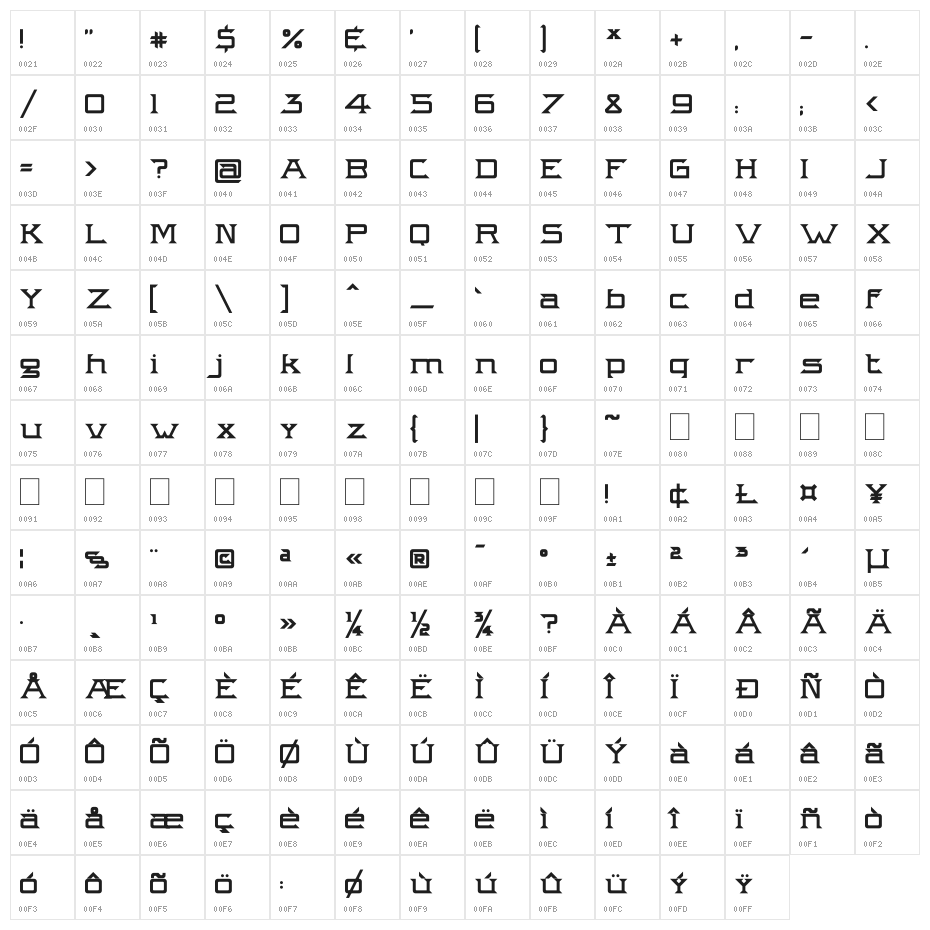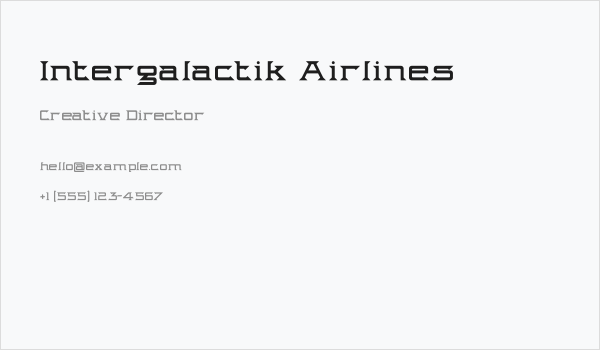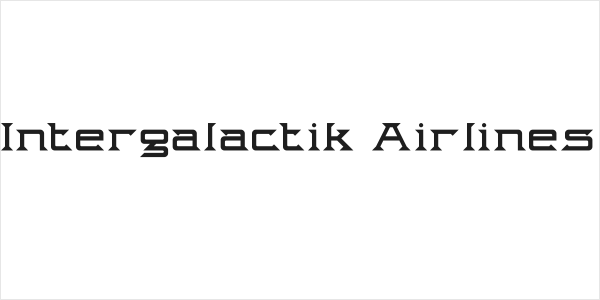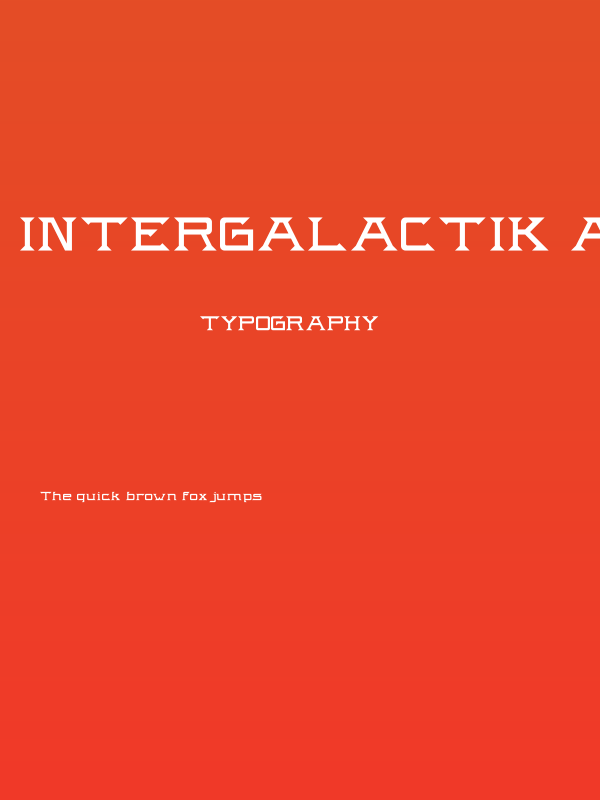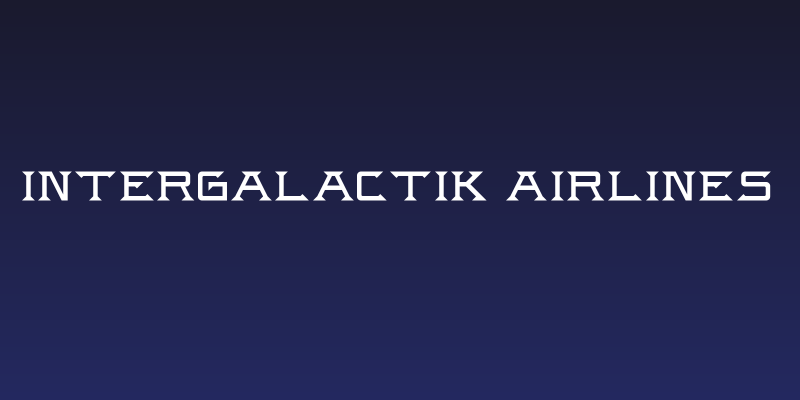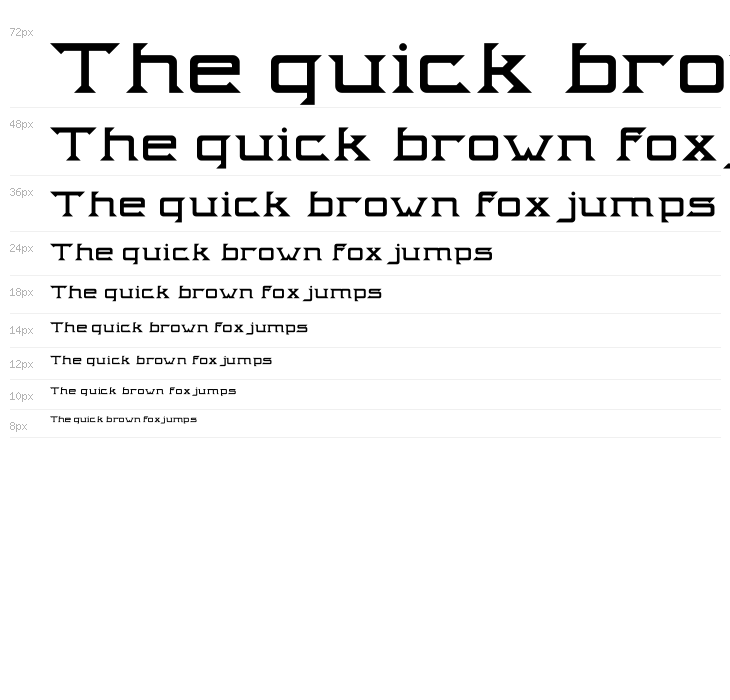
Intergalactik Airlines Font
Intergalactik Airlines Description
This font features a futuristic and angular design, characterized by sharp edges and geometric shapes. The uppercase letters are bold and striking, with a consistent height and width that gives them a uniform appearance. The lowercase letters maintain the angular theme, offering a unique twist on traditional letterforms. Numbers and special characters are designed to match the overall aesthetic, with distinct angles and lines that enhance the modern feel. The font's style is reminiscent of science fiction and space themes, making it ideal for projects that require a bold and innovative look.
| Proposed Projects | Ideal for sci-fi themed projects, video game titles, movie posters, and branding for tech companies. |